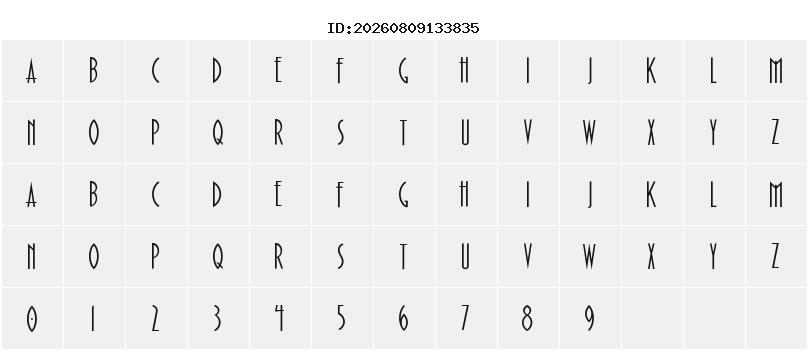
• Font Name: Paulistana Deco
• Designer: Sergio Salgado
• Manufacturer: Megaarte Design
About Paulistana Deco.ttf
Paulistana Deco.ttf is a modern, elegant sans-serif font designed for ultimate readability and visual harmony. Perfect for branding, headlines, web design, and print materials.